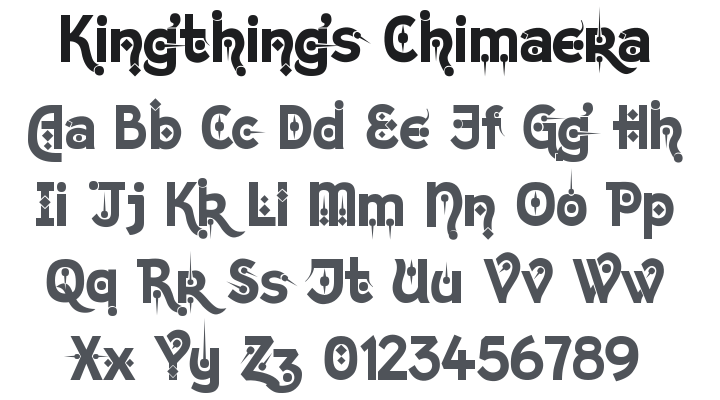
Kingthings Chimaera Font
About Kingthings Chimaera
This font is based on Kingthings Hand - I wanted to play with a font to see what i could add in the way of decoration and what it would do to the way the font 'set' and the file size... Then I decided to release it as I liked what happened.